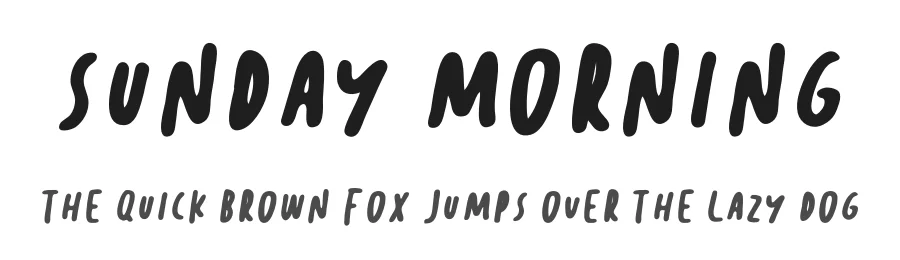
About Black Stones Font
Black Stones is a script & handwritten font designed by Fanastudio. It includes 239 glyphs, a regular weight, OTF (CFF) format, and 211 languages. Black Stones is free to download; check the license details on this page before commercial use. Script & handwritten fonts like Black Stones work best for wedding invitations, greeting cards, signatures, and elegant branding.
Black Stones Font is a script font that shines as a display or heading face. Pair it with a clean sans-serif or serif font for body text β the contrast creates a clear hierarchy while the two styles stay balanced and easy to read.
Black Stones Font
by Fanastudio